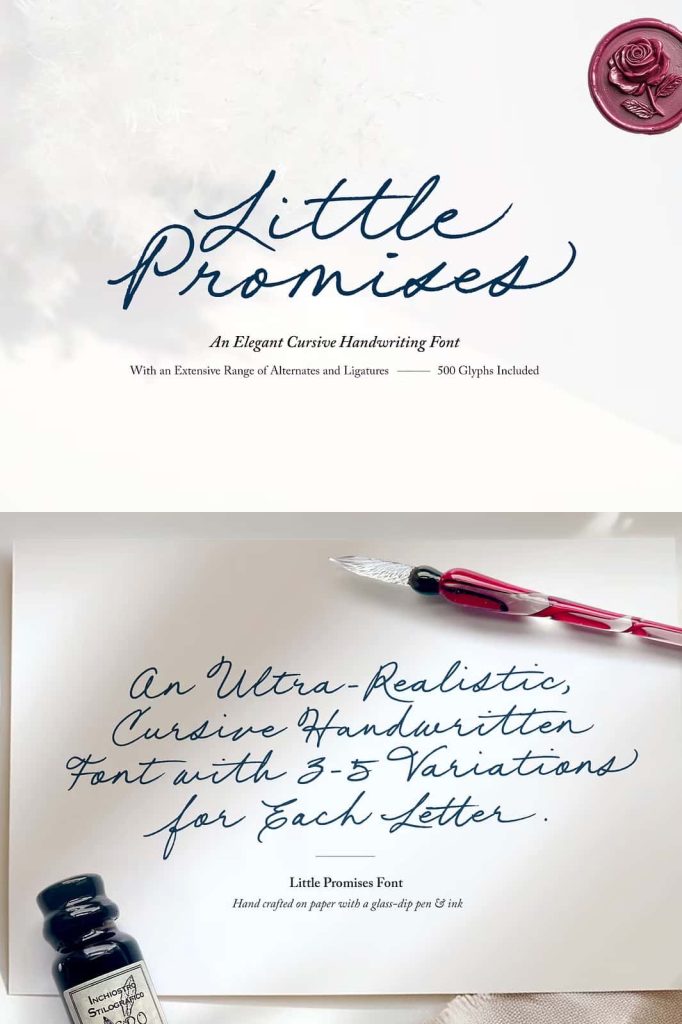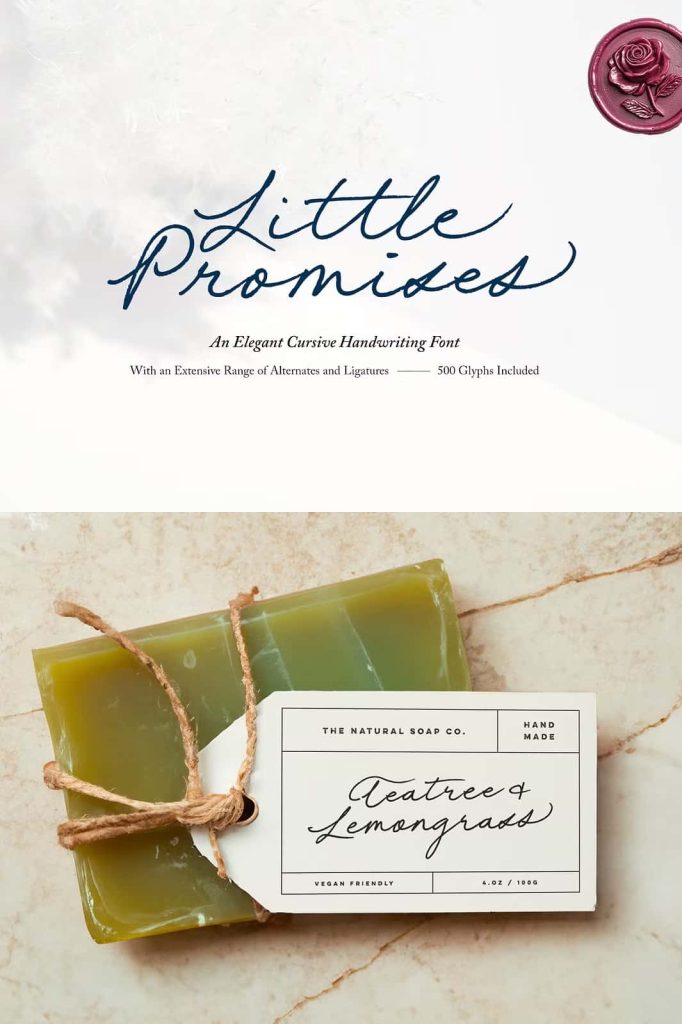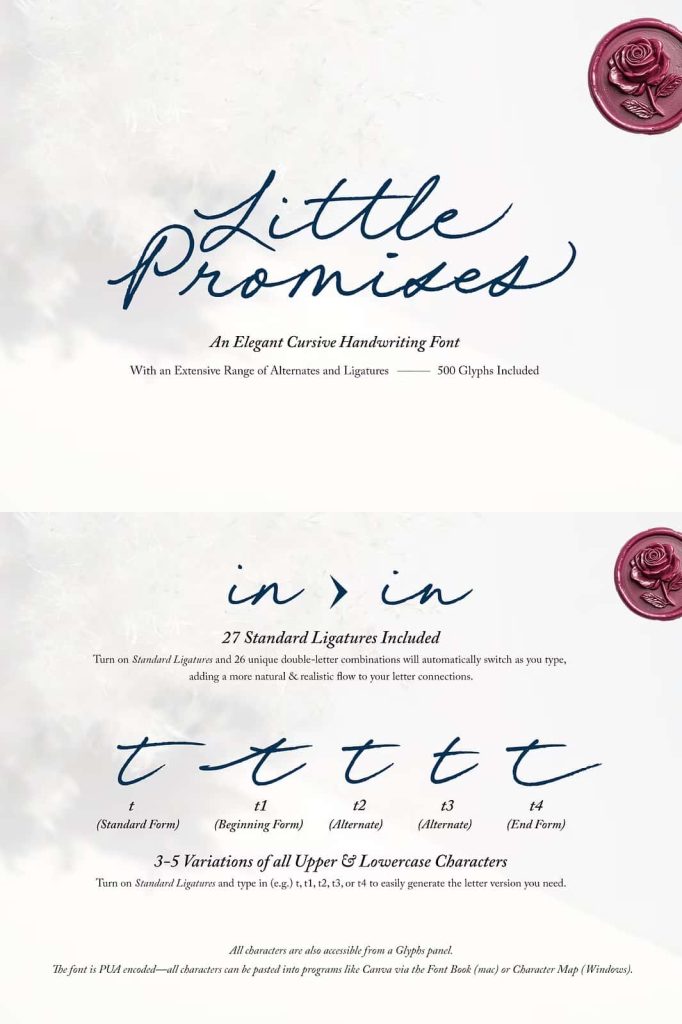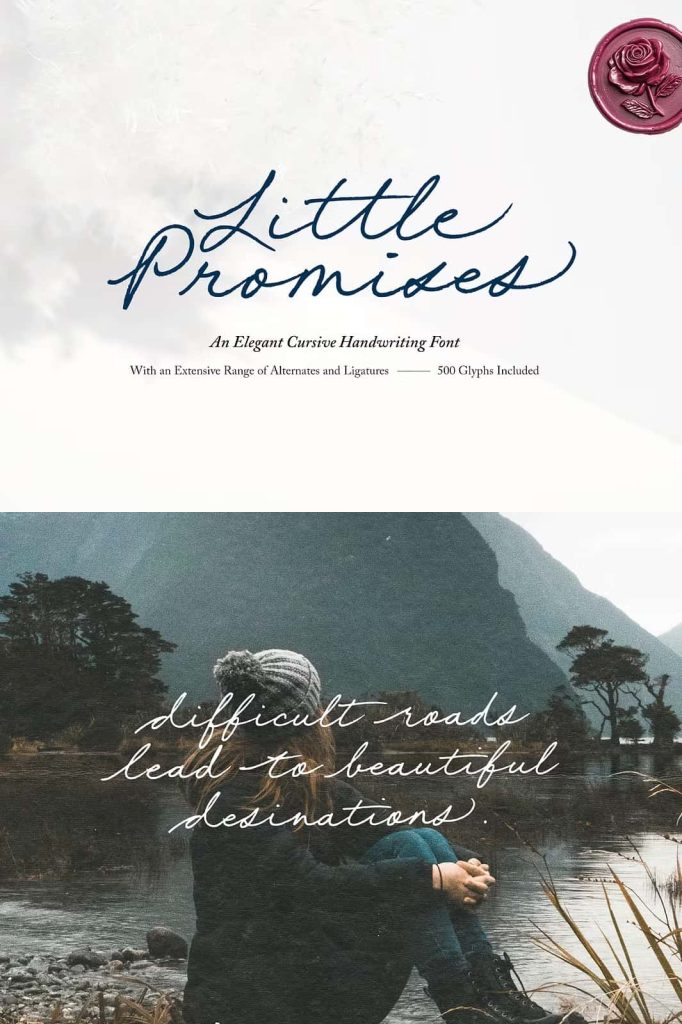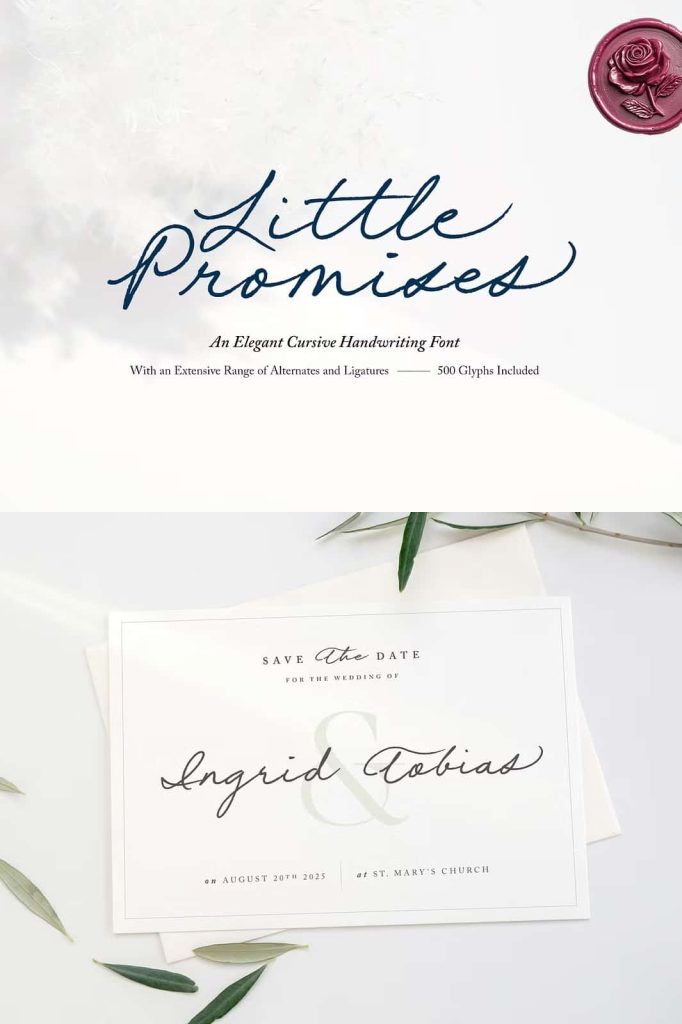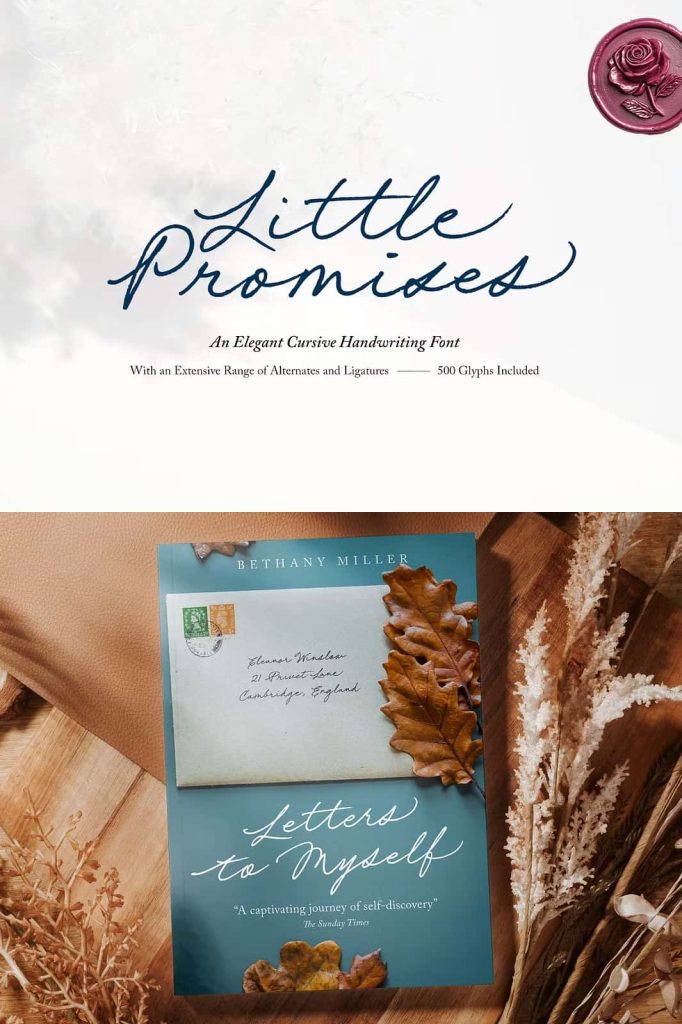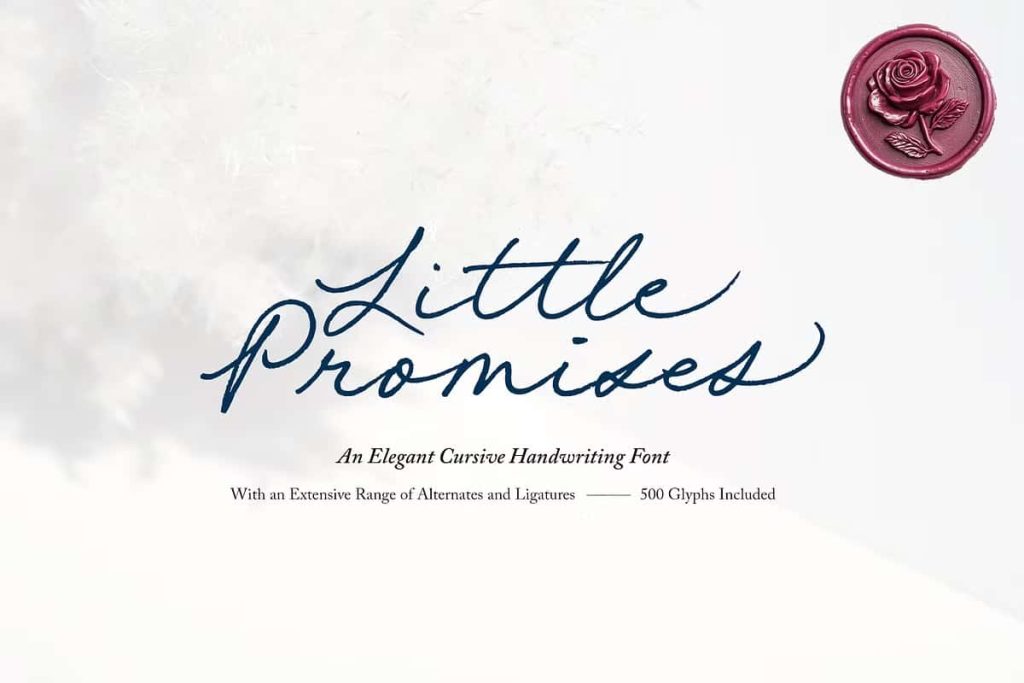
Little Promises Handwritten FontleastedJuly 24, 2025Fonts Little Promises is an elegant cursive handwriting font with a charming authenticity. Download